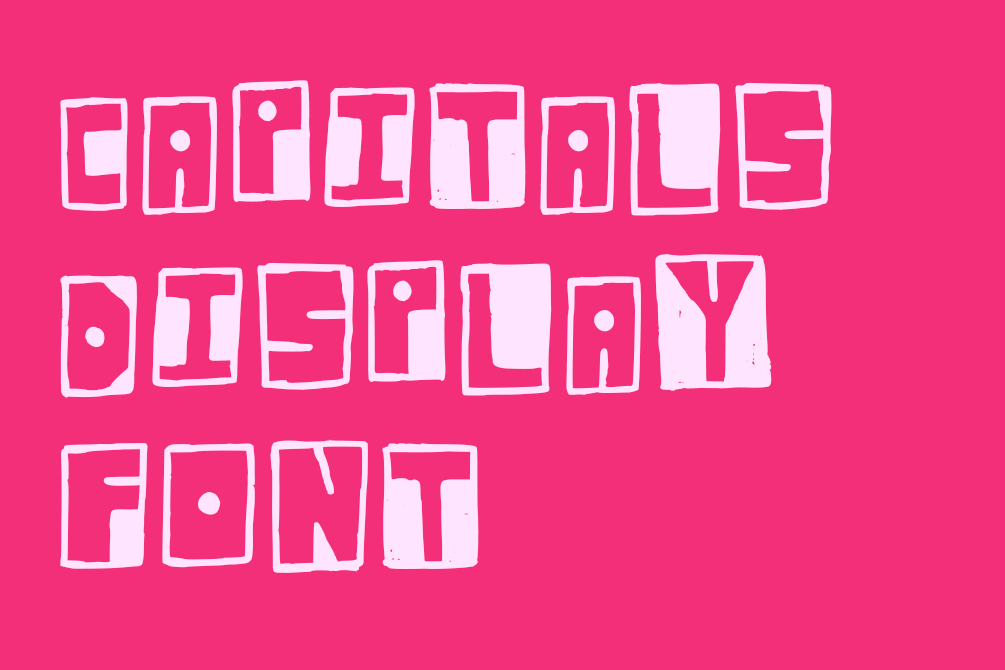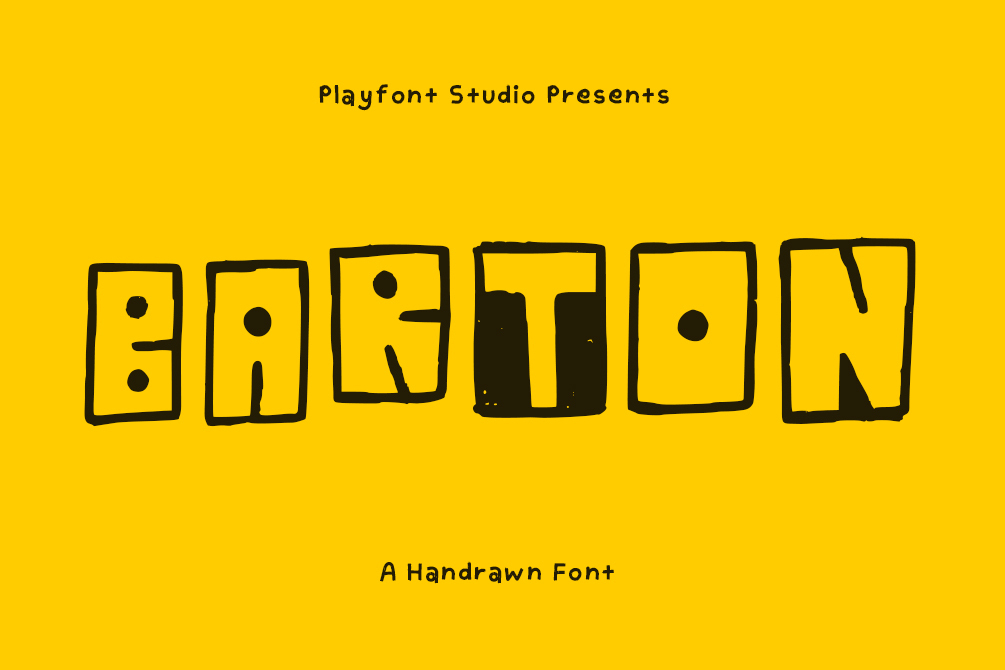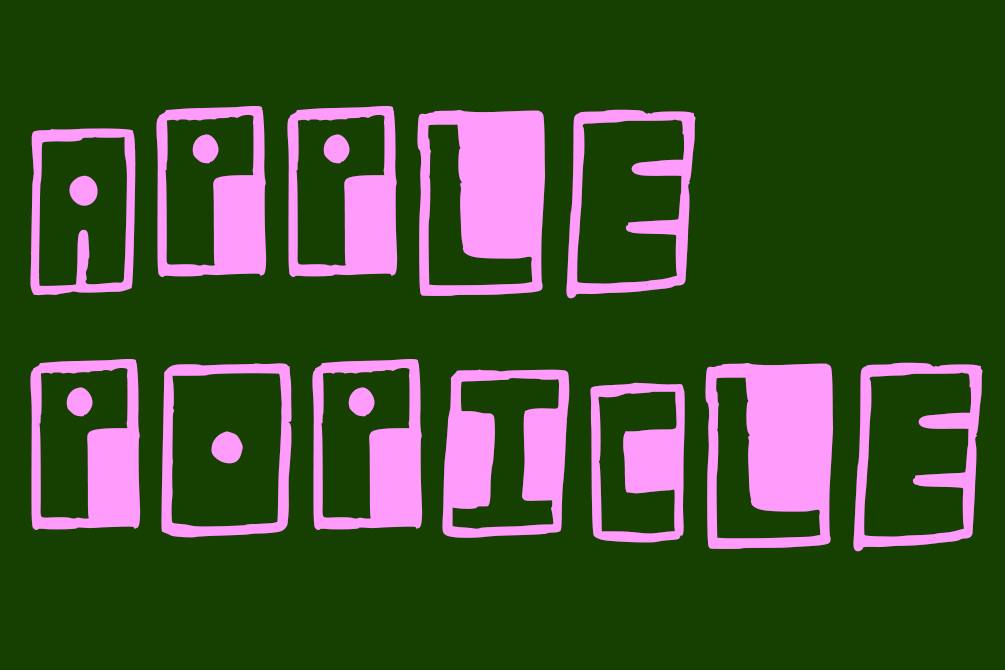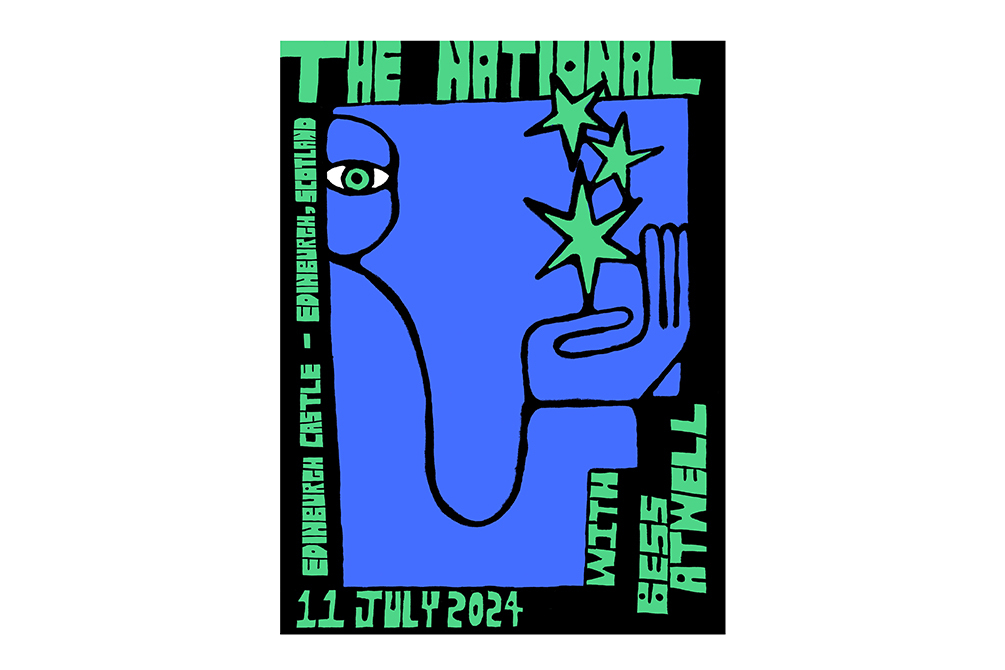
Barton - A Handmade Typeface
Designed by artist and designer Marcello Velho, Barton is a striking hand-drawn font that adds a bold, playful, and artistic touch to any project. Its blocky, irregular shapes and imperfect lines exude a raw, handcrafted charm, making it perfect for creative designs that need personality and energy.
Barton was prominently featured in a tour poster for The National, highlighting its versatility and ability to stand out in impactful and artistic visual compositions.
• Barton’s organic, block-like forms bring life and originality to your typography.
• Ideal for branding, event posters, album covers, packaging, and more.
• Preserves the raw essence of hand-drawn lettering, giving a sense of authenticity and creativity to every project.
Whether you’re designing for music, art, or any project that calls for bold and eye-catching typography, Barton delivers with its unique and memorable style.